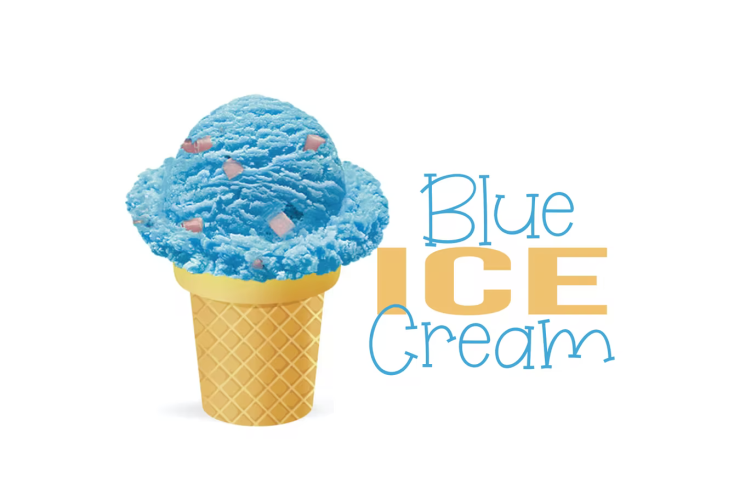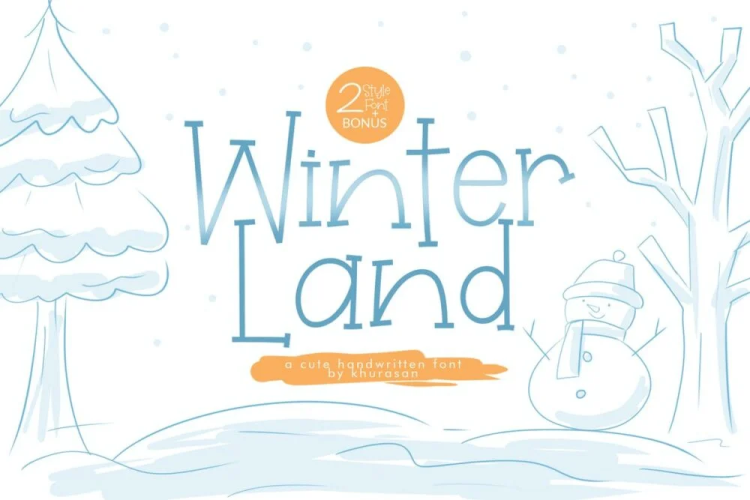
WinterLand Font
WinterLand Font is a display typeface awesome character with 2 different styles, regular and slant. Winterland font it’s perfect for name cards, posters, logos, magazine…
WinterLand Font is a display typeface awesome character with 2 different styles, regular and slant. Winterland font it’s perfect for name cards, posters, logos, magazines, covers, banners, t-shirts and headers, or even large-scale artwork.
Where WinterLand Font works best
WinterLand Font brings a personal, handwritten warmth to invitations, menus and place cards.
Craft brands — coffee, cosmetics, bakery — use scripts like WinterLand Font for signature-style logos and labels.
Pair WinterLand Font with a plain sans for quotes, stories and Pinterest pins that feel handmade.
What is WinterLand Font good for?
WinterLand Font is a Script And Handwritten typeface tagged Branding, Display, Editorial, Poster. It works well for headlines, logos, posters, social media graphics and branding projects that need a distinctive script and handwritten look.